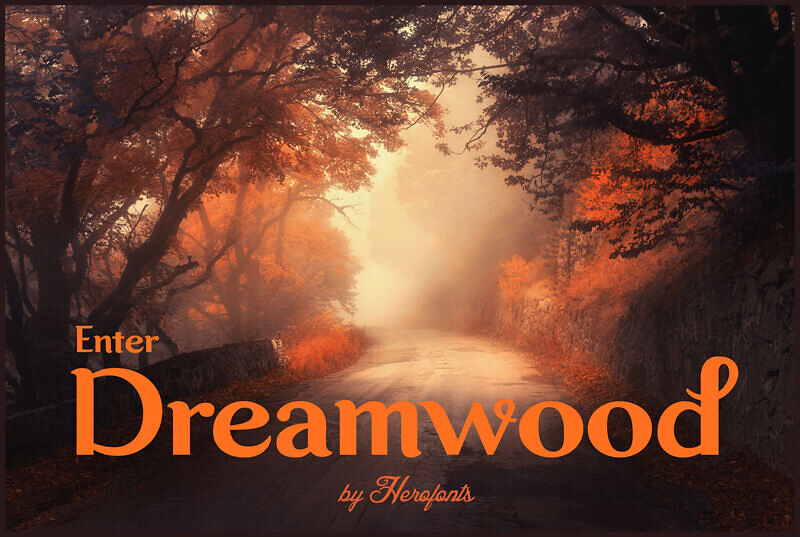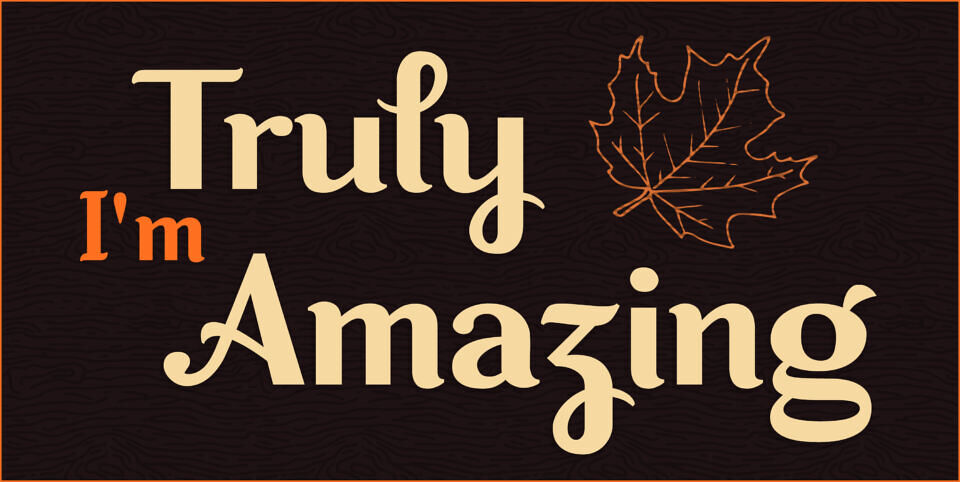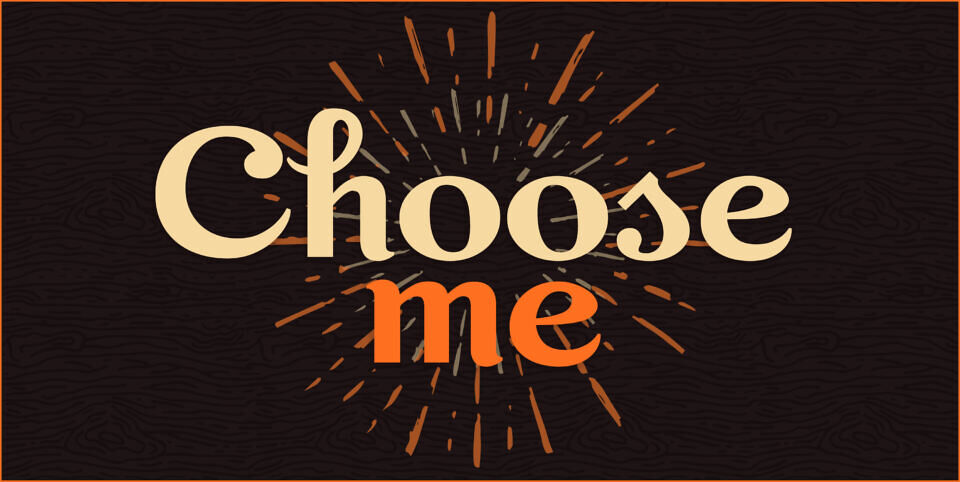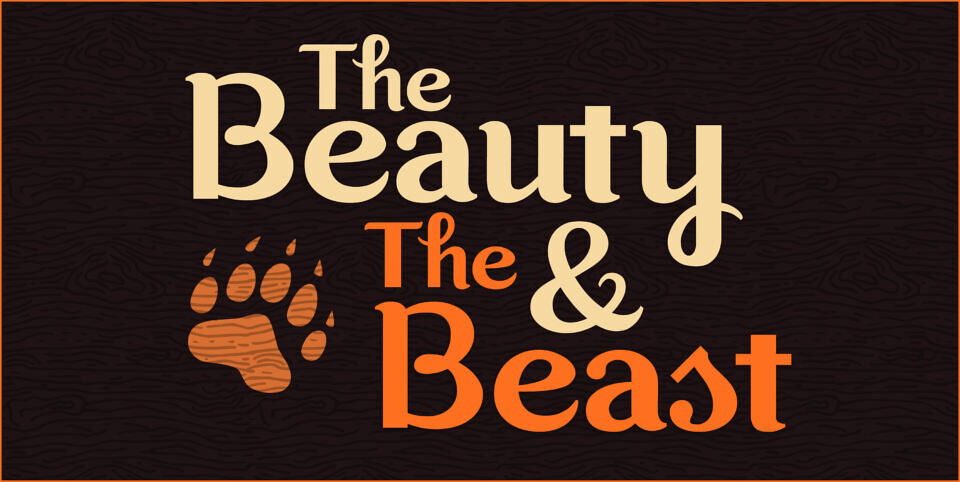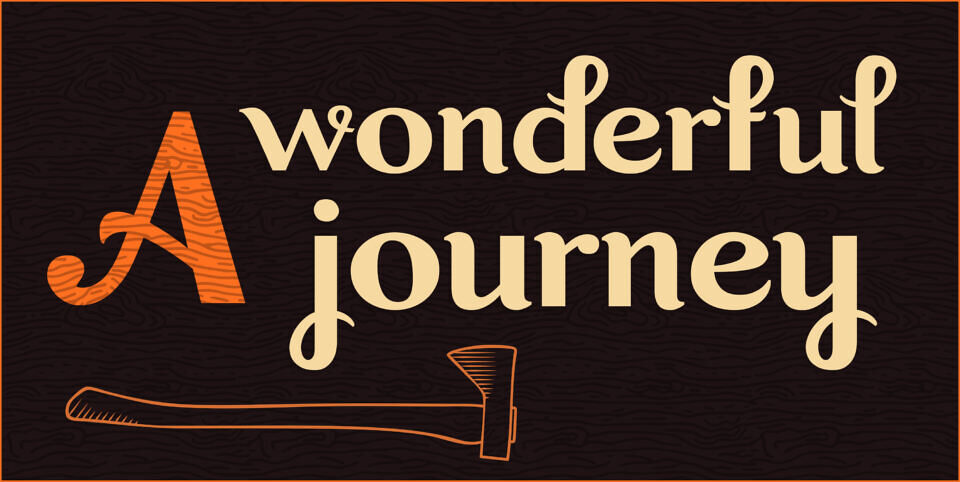
Dreamwood Font
Both dark and graceful, Dreamwood is your gateway to creating a unique design that will make a lasting impression on your customers. Dreamwood comes with the Web versions in addition of the desktop version (paid version)!